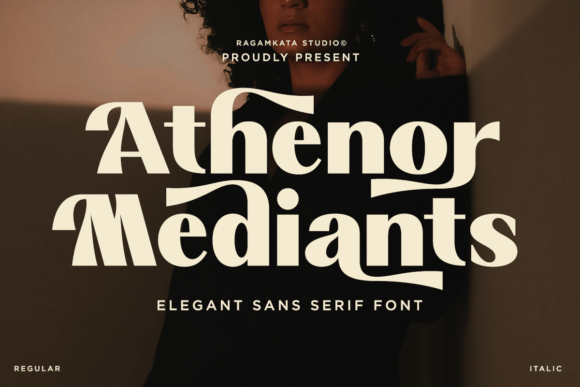
As a designer, there’s no thrill quite like stumbling upon the perfect font for a project. It’s that moment when all the elements come together, and the visual message clicks into place. You’re browsing through a font library, scrolling through endless options, and then – suddenly – you see it: Athenor Mediants Font. Its elegant lines and refined contrast make your heart skip a beat.
Athenor Mediants Font is a masterful blend of classical sophistication and modern design. With its distinctive mediant-style strokes and gracious curves, it exudes a luxurious yet confident visual presence. For designers, this font is a treasure trove of possibilities, offering a unique balance of personality and readability. Whether you’re working on a luxury brand, a fashion editorial, or a book cover, Athenor Mediants Font is an excellent choice.
- Unique Characteristic: Features a unique blend of modern and traditional typography, making it suitable for a wide range of design applications
Athenor Mediants Font Review
I recently had the chance to work with the Athenor Mediants Font, and I must say it’s a unique and interesting typeface. ✨ One of the things that stood out to me was the way it handles ligatures – the font has a great set of pre-built ligatures that make text look incredibly smooth and professional.
Another aspect that I appreciate is the extensive character set, which includes a wide range of symbols, mathematical operators, and even a few emojis. ✨ This makes it a great choice for anyone working on projects that require a high level of customization.
While the Athenor Mediants Font has its strengths, there are a few areas where it falls short. ⚠️ For one, the font’s line spacing can be a bit inconsistent at times, which can make text appear cluttered or hard to read. Additionally, the font’s italic and bold styles could be more refined – they sometimes feel a bit rough around the edges.
Overall, I’d say the Athenor Mediants Font is a solid choice for designers who need a versatile, professional-looking typeface. While it’s not perfect, its strengths make it a great option for projects that require a high level of customization.
- Unique ligature set for smooth text rendering
- Extensive character set with symbols, mathematical operators, and emojis
- Professional-looking font suitable for a wide range of projects
Getting the Most Out of Athenor Mediants Font
Athenor Mediants Font is a versatile font that can be used for various purposes. To get the most out of it:
1. Experiment with different font sizes and styles to create a unique look.
2. Pair Athenor Mediants with other fonts to create a harmonious typography.
3. Use Athenor Mediants for headings, titles, and body text to create a consistent look.
Athenor Mediants Font is ideal for:
1. Book and magazine titles.
2. Brand